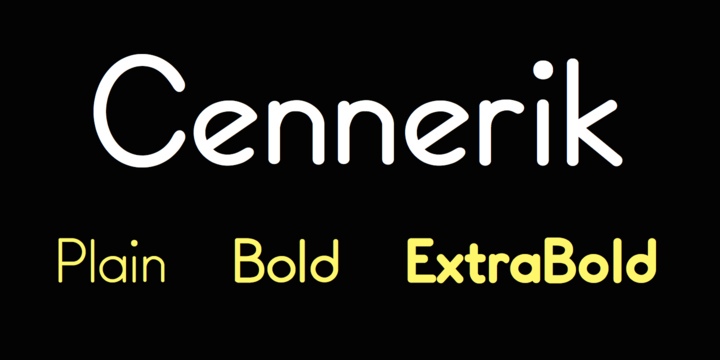
Cennerik Font
Cennerik Font is perfect for Nordic-inspired branding, Scandinavian design projects, modern furniture marketing, minimalist architecture presentations, clean lifestyle publications, contemporary art gallery materials, sleek product packaging, and sophisticated corporate communications where simplicity and elegance converge.
What makes Cennerik Font so exciting is its masterful embodiment of Nordic design principles through pristine letterforms that celebrate the beauty of simplicity while maintaining exceptional functionality. The refined characters reflect the Scandinavian philosophy of combining aesthetic purity with practical excellence that resonates with design-conscious audiences worldwide.
The Cennerik Font family includes thin, light, regular, medium, bold, and black weights, with matching oblique styles that provide comprehensive typographic flexibility for creating sophisticated Nordic-inspired design systems and contemporary brand hierarchies.
This elegant typeface captures the essence of Scandinavian design heritage, combining traditional Nordic values with contemporary international appeal. The Cennerik Font Free Download offers modern brands access to typography that communicates refined taste and design intelligence.
The font's clean geometric structure and carefully balanced proportions create immediate associations with Nordic craftsmanship and contemporary design excellence. Each letterform has been meticulously crafted to embody the principles of functional beauty and timeless sophistication.
Cennerik Font transforms brand communications into compelling statements about quality and design consciousness. The typeface's understated elegance makes it ideal for brands targeting sophisticated consumers who appreciate authentic design heritage and contemporary aesthetics.
From furniture designers to architectural firms, this font brings Nordic credibility that appeals to international audiences seeking authentic Scandinavian design experiences. The versatile design maintains its sophisticated character across both luxury applications and accessible contemporary products.